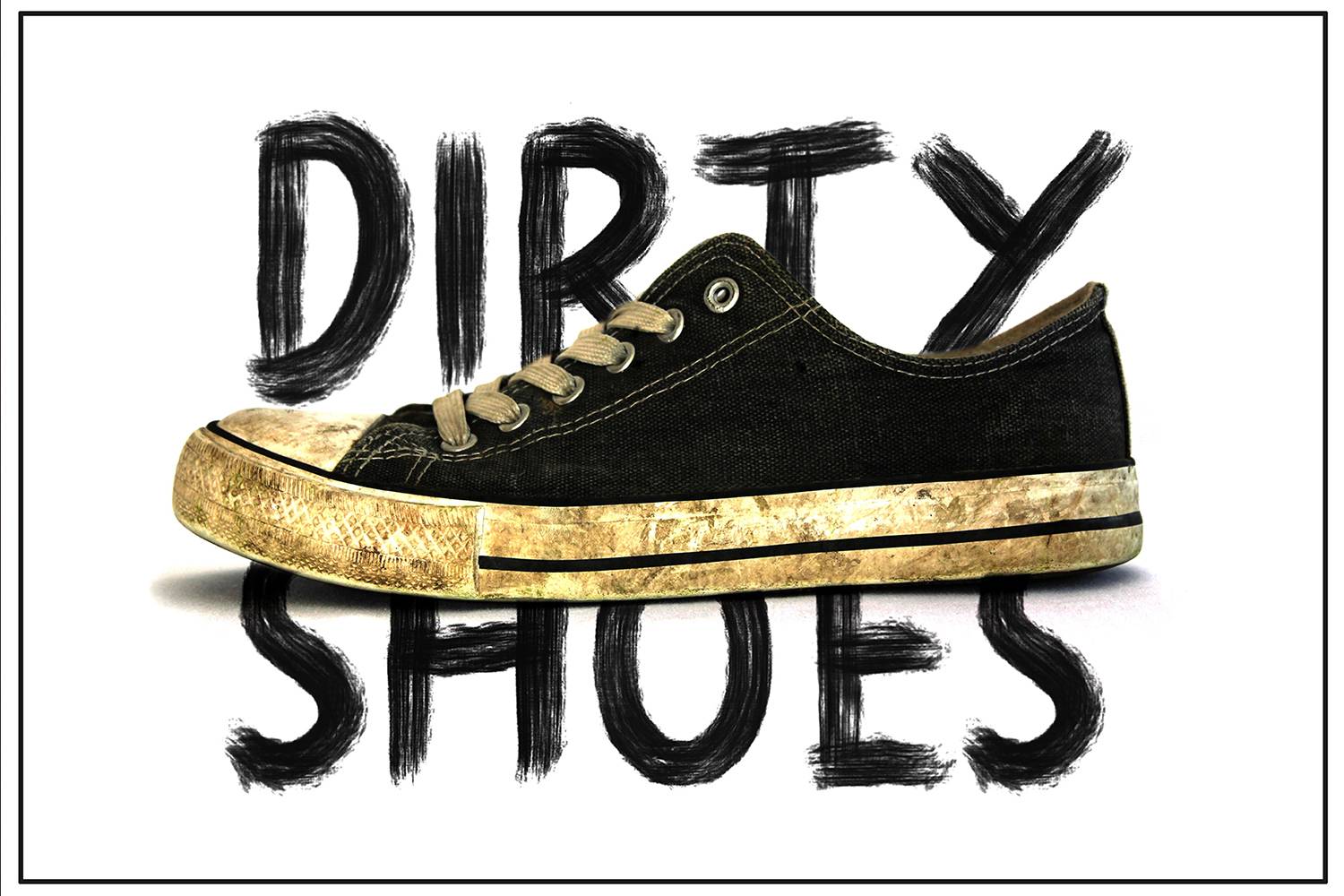
Unknown Secret Brush is a bold, hand-drawn sans serif font with a textured brushstroke style that gives it a dynamic and organic feel. Its uppercase letters and uneven edges create a casual, artistic vibe perfect for creative projects, posters, and branding that want to convey energy and individuality. This font works best where a lively, handmade look is desired, adding personality and a touch of informal charm.
Unknown Secret Font
About Unknown Secret Font